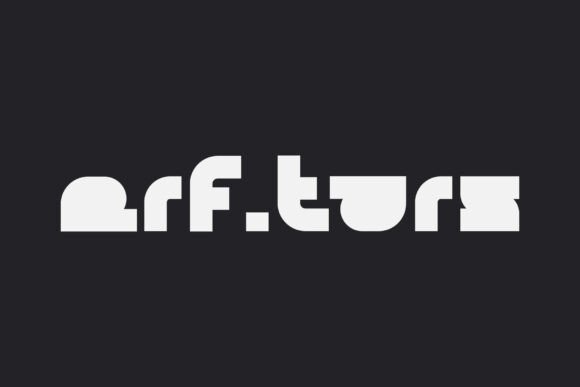
Introducing ERF Tars: A Futuristic Sans Serif Font Family for Bold Statements
In the realm of typography, fonts play a crucial role in shaping the visual identity of a brand, product, or service. With the ever-evolving landscape of design, the demand for unique and impactful fonts has never been higher. This is where ERF Tars comes into play – a revolutionary sans serif font family that embodies the essence of futuristic design with its sharp geometric cuts and experimental brutalist aesthetics.
The Birth of ERF Tars: A Blend of Boldness and Versatility
ERF Tars is not just another font; it’s an experience. Designed to make a statement, this font family boasts striking modular forms that exude a bold and unconventional voice. Whether you’re looking to create standout headlines, logos, or ultra-modern branding, ERF Tars is the perfect companion for designers and brands aiming to leave a lasting impression.
Unleashing Creativity with 24 Styles
What sets ERF Tars apart is its incredible versatility, thanks to its comprehensive range of 24 styles – 12 uprights and 12 italics. This extensive collection offers a wide array of expressive weights, ranging from the subtle Whisper to the powerful Doom. Such a broad spectrum of weights makes ERF Tars highly adaptable for various applications, from digital platforms to print materials.
Design Philosophy: Sharp Geometric Cuts and Brutalist Aesthetics
At the heart of ERF Tars’ design philosophy lies a commitment to sharp geometric cuts and experimental brutalist aesthetics. Each character is meticulously crafted with clean lines and modular shapes, giving the font its distinctive futuristic look. The brutalist approach adds a layer of rawness and honesty, making ERF Tars not just a font but a statement piece.
Legibility and Rhythm: The Core of ERF Tars
While ERF Tars is undeniably bold and attention-grabbing, it also prioritizes legibility and rhythm. The designers behind ERF Tars understand that a font’s impact is not solely measured by its uniqueness but also by its readability. Therefore, each character is carefully designed to ensure that it not only makes an impact but also maintains a harmonious flow, making it suitable for a wide range of applications.
Applications of ERF Tars: From Digital to Print
ERF Tars’ versatility extends beyond its styles to its applications. This font family is incredibly versatile, making it suitable for both digital and print needs.
Digital Applications
In the digital realm, ERF Tars shines with its modern and bold aesthetic. It’s perfect for:
• Website headers and titles that demand attention
• Mobile app interfaces that require a fresh and futuristic look
• Social media graphics that need to stand out in crowded feeds
• Digital advertising that aims to leave a lasting impression
Print Applications
In print, ERF Tars offers a unique opportunity to elevate brand materials with its striking design. It’s ideal for:
• Logos and branding materials that need a bold statement
• Poster and billboard designs that aim to capture attention from a distance
• Packaging designs that require a modern and impactful look
• Business cards and letterheads that need to make a memorable impression
Why Choose ERF Tars?
With the myriad of fonts available today, what makes ERF Tars stand out? Here are a few reasons why designers and brands are gravitating towards ERF Tars:
• Unique Aesthetic: ERF Tars offers a fresh and unique aesthetic that is hard to find in traditional fonts.
• Versatility: With 24 styles, ERF Tars provides an extensive range of options for designers.
• Legibility: Despite its bold design, ERF Tars maintains high legibility, making it suitable for various applications.
• Impact: ERF Tars is designed to make an impact, perfect for brands looking to stand out.
ERF Tars is more than just a font family; it’s a design statement. With its sharp geometric cuts, experimental brutalist aesthetics, and a comprehensive range of styles, ERF Tars is poised to revolutionize the way we think about typography. Whether you’re a designer looking for a bold statement piece or a brand aiming to elevate your visual identity, ERF Tars offers a world of creative possibilities. Embrace the future of design with ERF Tars and make your mark with a font that is as bold as it is beautiful.